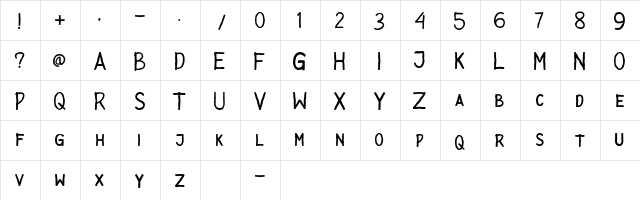
PSYCHOPAT Regular
| Designer | Paranesia |
Design Context for PSYCHOPAT Typeface
PSYCHOPAT takes a measured approach to typography — its balanced proportions and neutral character make it a reliable workhorse for both digital and print work.